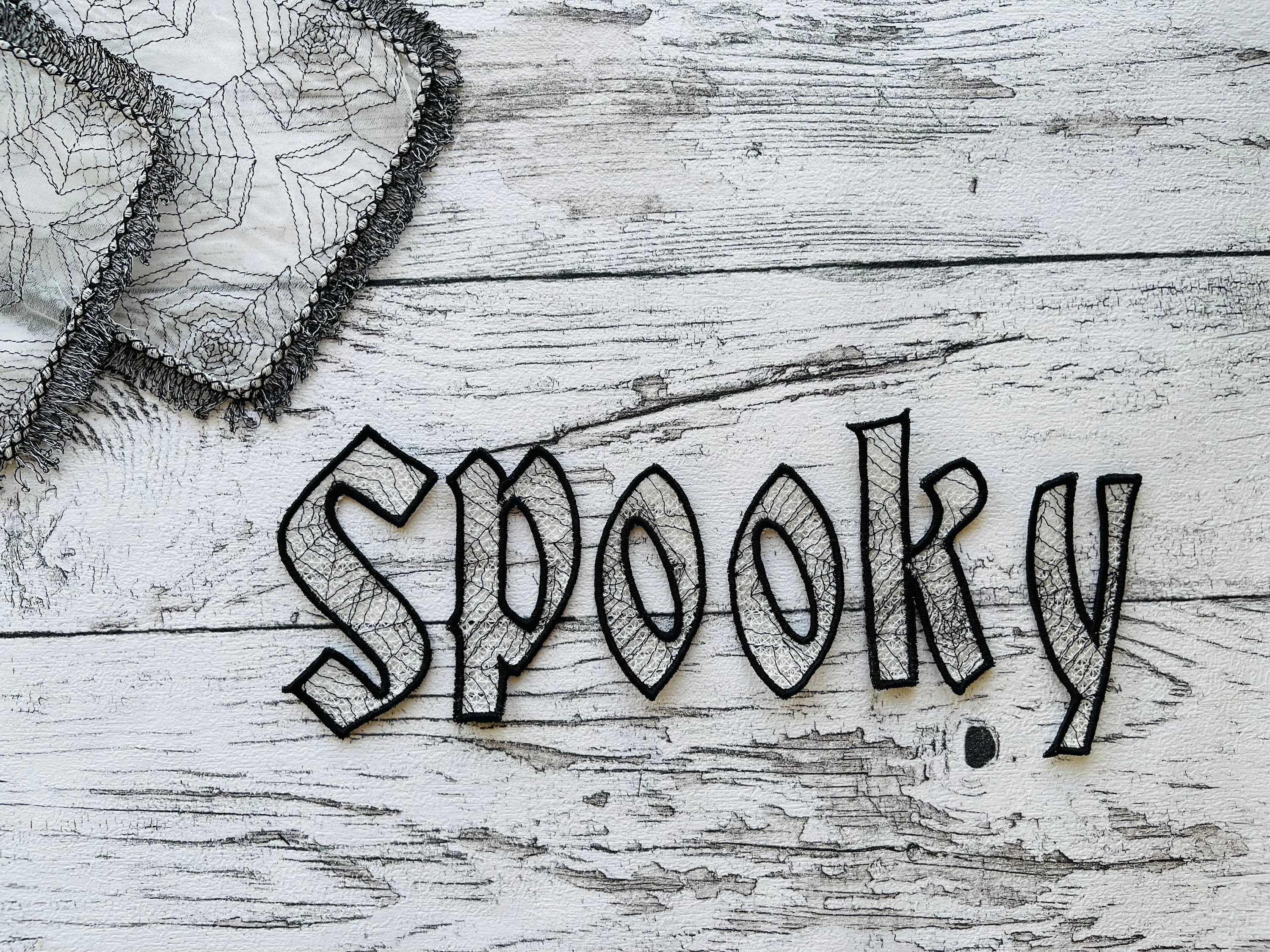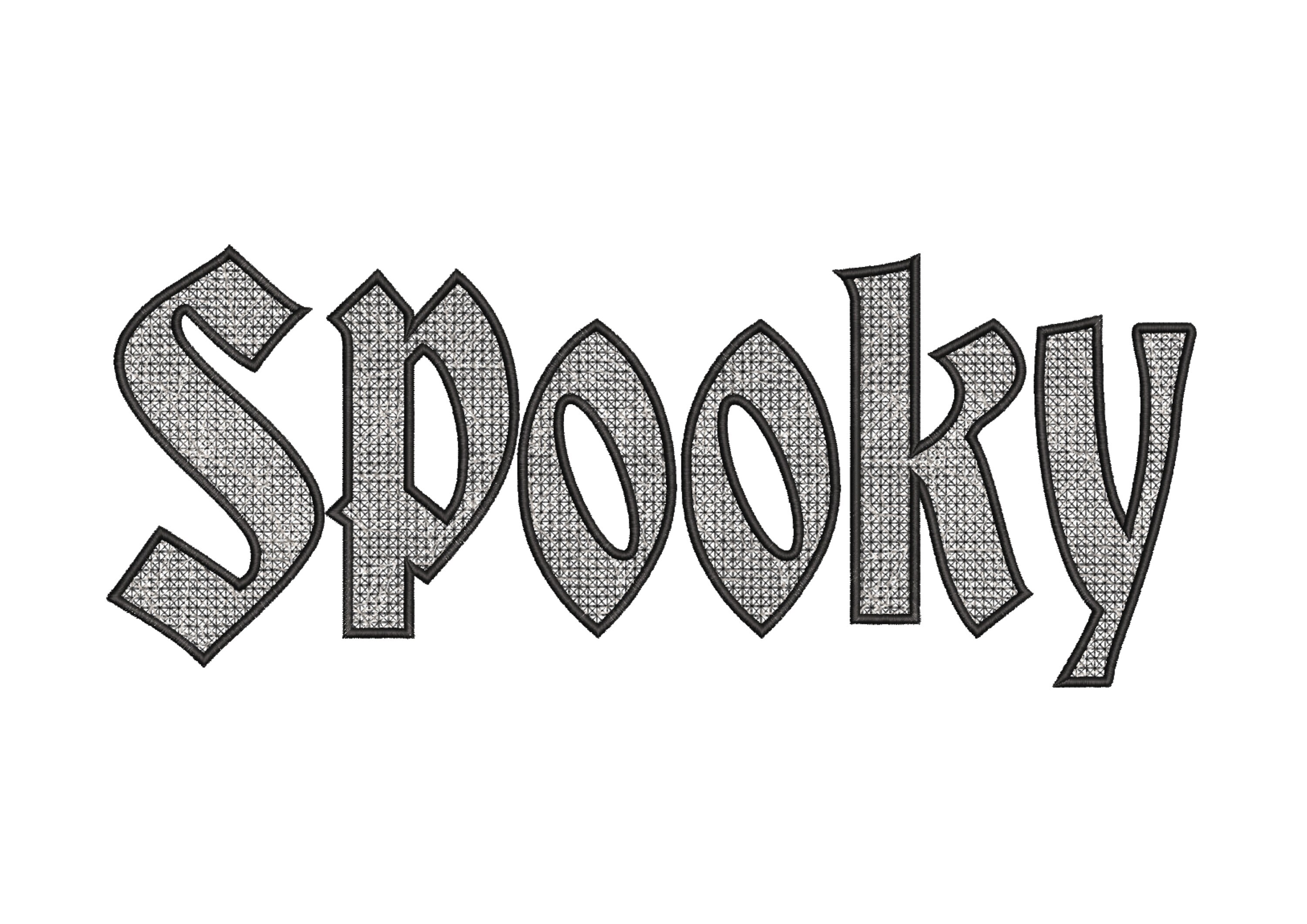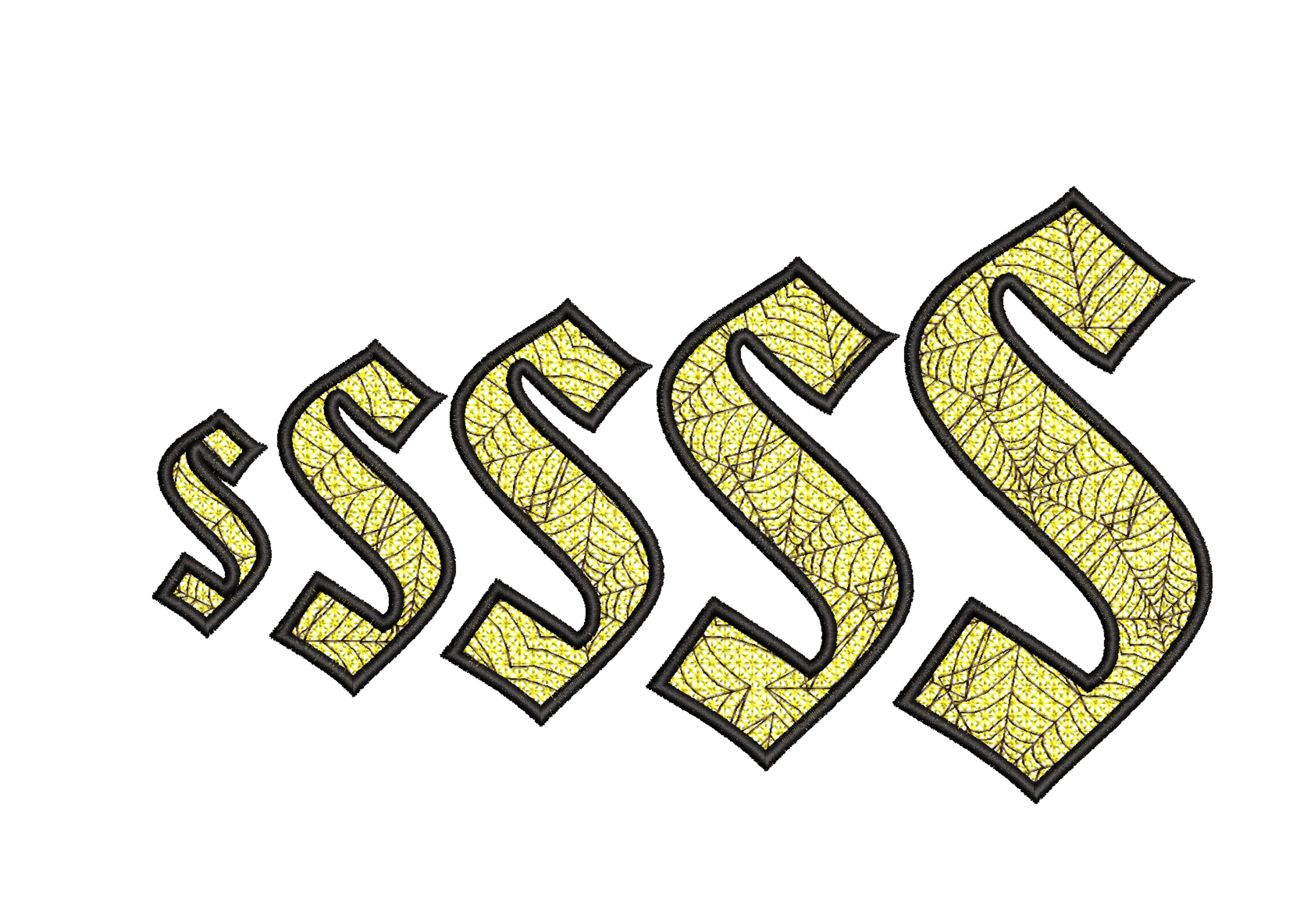
Spooky gothic spiderweb Lace Font FSL free standing lace Font machine embroidery designs, lacy alphabet letters assorted sizes, BX included!
Uppercase and lowercase, and numbers 0-9.
Freestanding lace! The adorable design is stitched onto a non-woven water-soluble stabilizer.